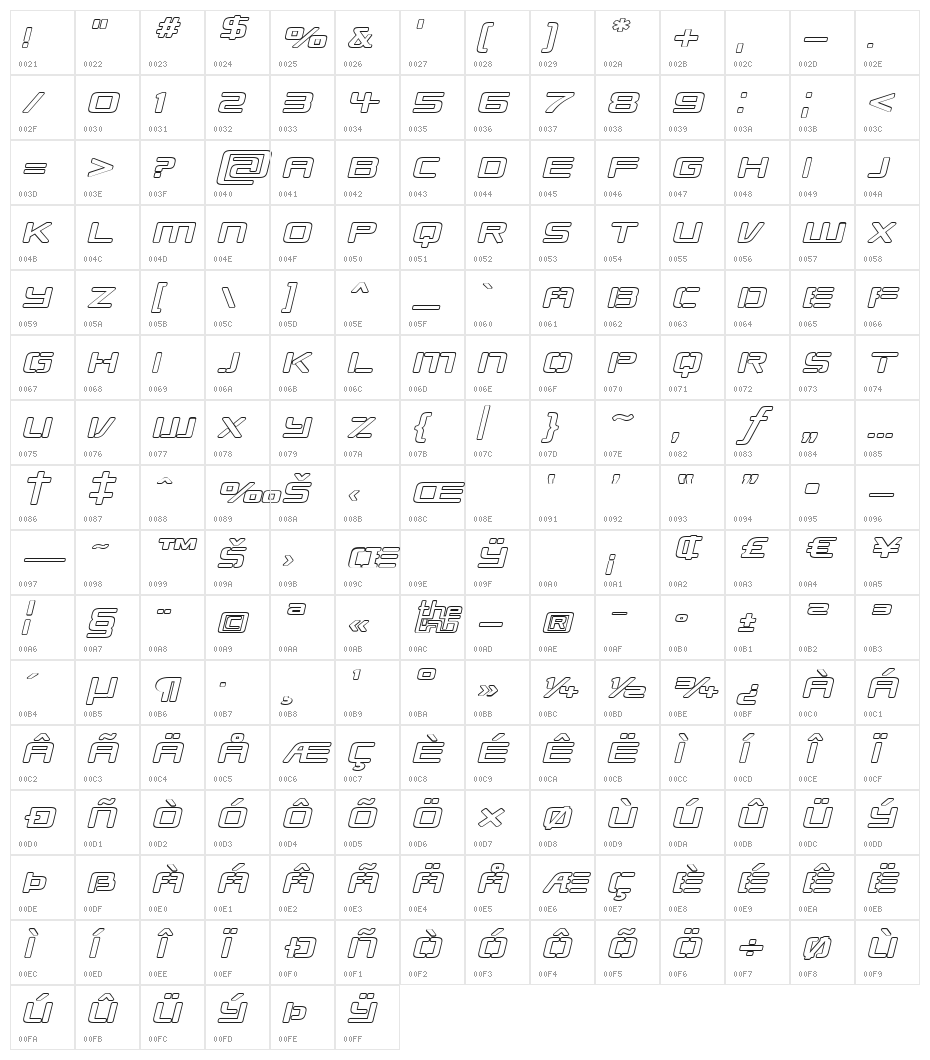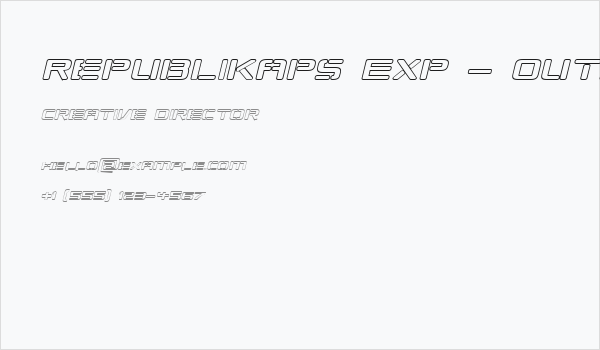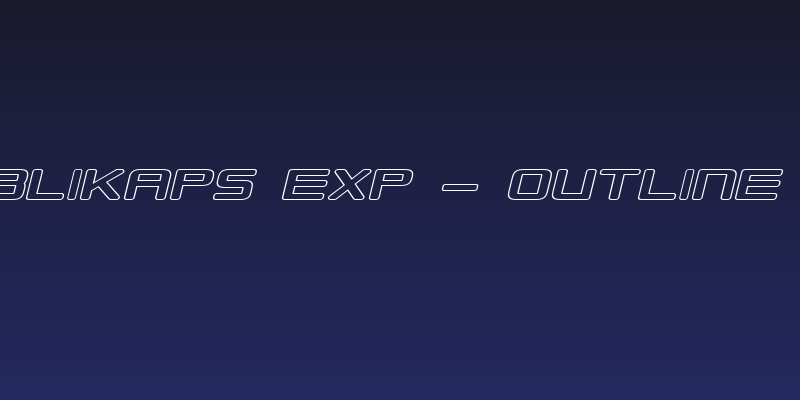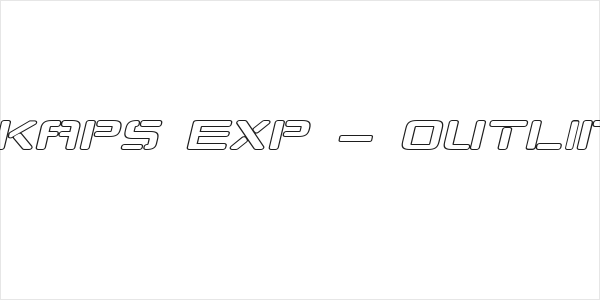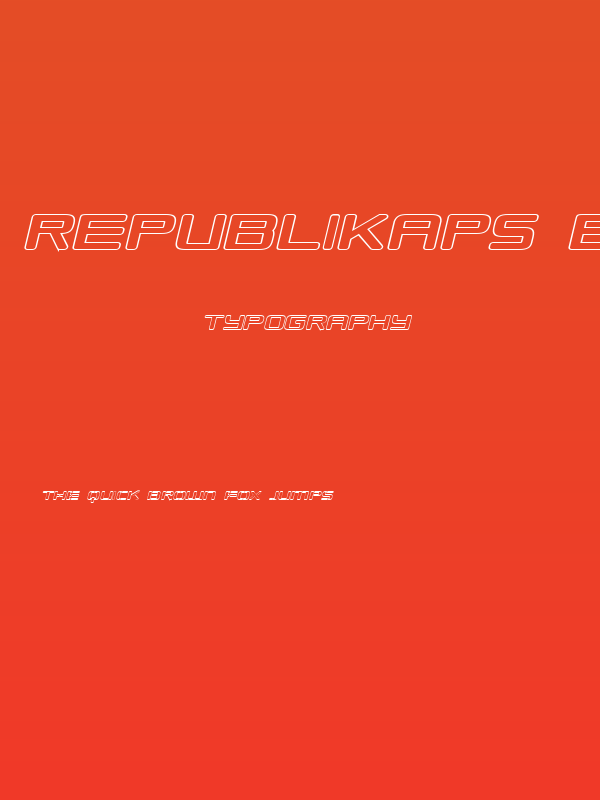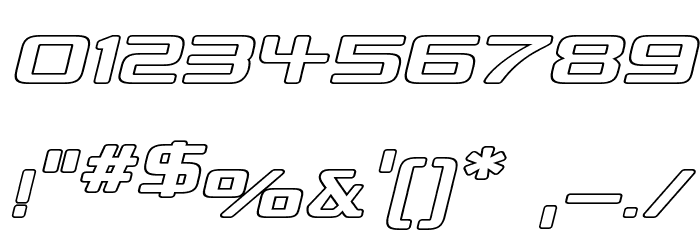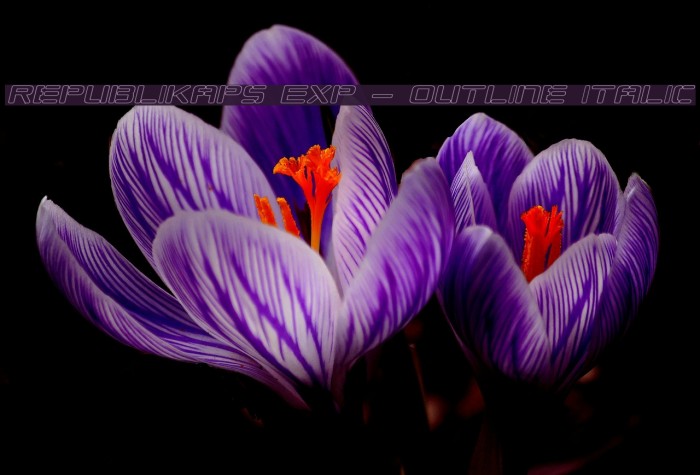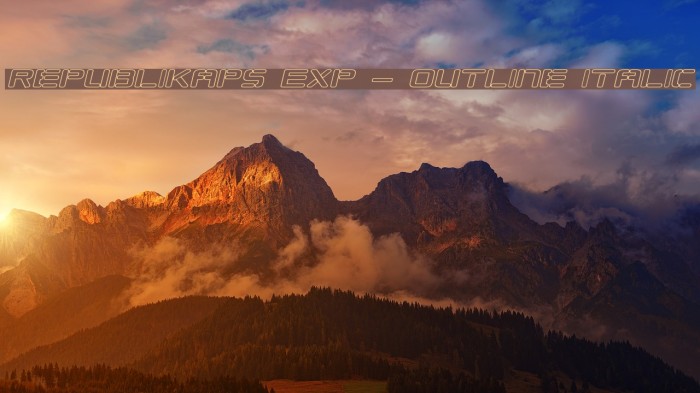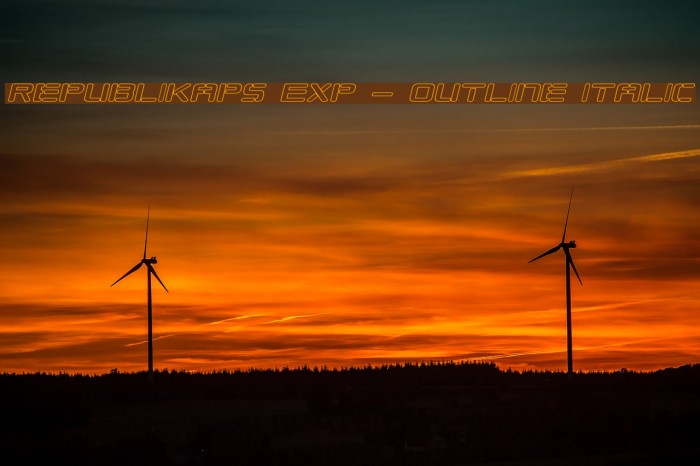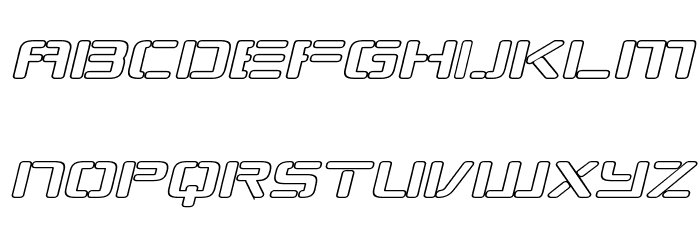
Republikaps Exp - Outline Italic Font
Republikaps Exp - Outline Italic Description
This font features a modern, geometric outline style with a distinct italic slant, giving it a dynamic and futuristic appearance. The characters are formed with clean, continuous lines that create an open and airy feel. The uppercase and lowercase letters maintain a consistent height, contributing to a uniform look. The numerals and special characters are designed with the same outlined structure, ensuring cohesion across all elements. The font's expanded width enhances readability, making it suitable for various design applications. Its unique style is ideal for projects that require a contemporary and eye-catching typeface.
| Use Case | Logos, Headlines, Posters |
| Proposed Projects | Ideal for branding, posters, digital media, and futuristic design projects. |